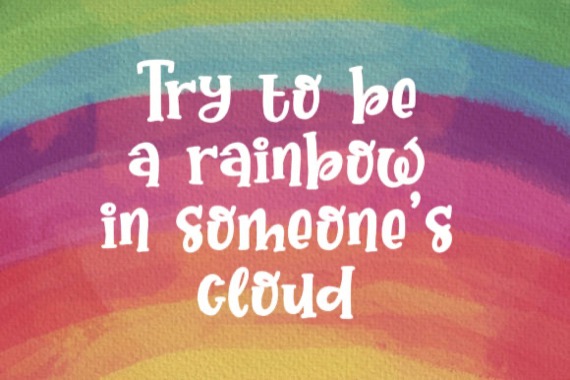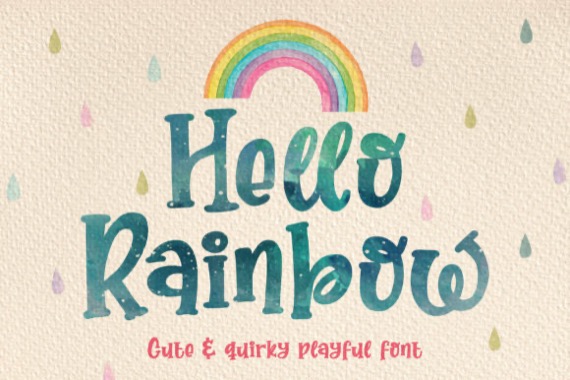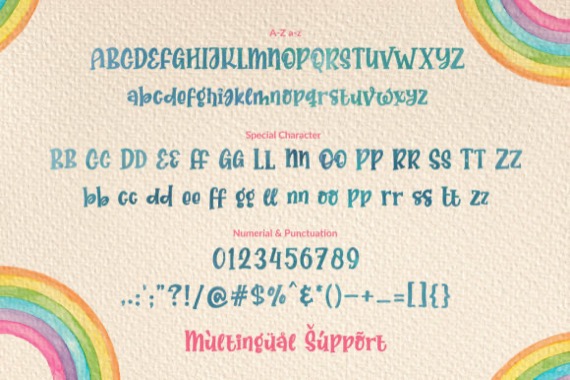
Proudly Hello Rainbow from Orenari is a cute and quirky display font with an incredibly friendly feel. Whether you’re looking for fonts for Instagram or calligraphy scripts for DIY projects, this font will turn any creative idea into a true piece of art!
Hello Rainbow Display Font